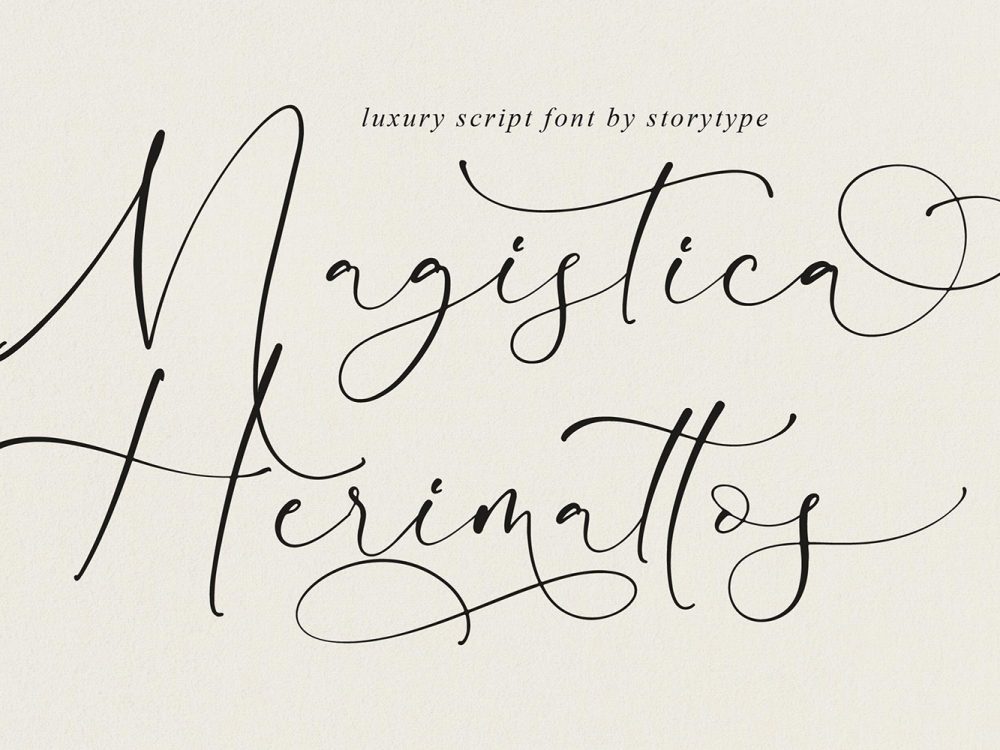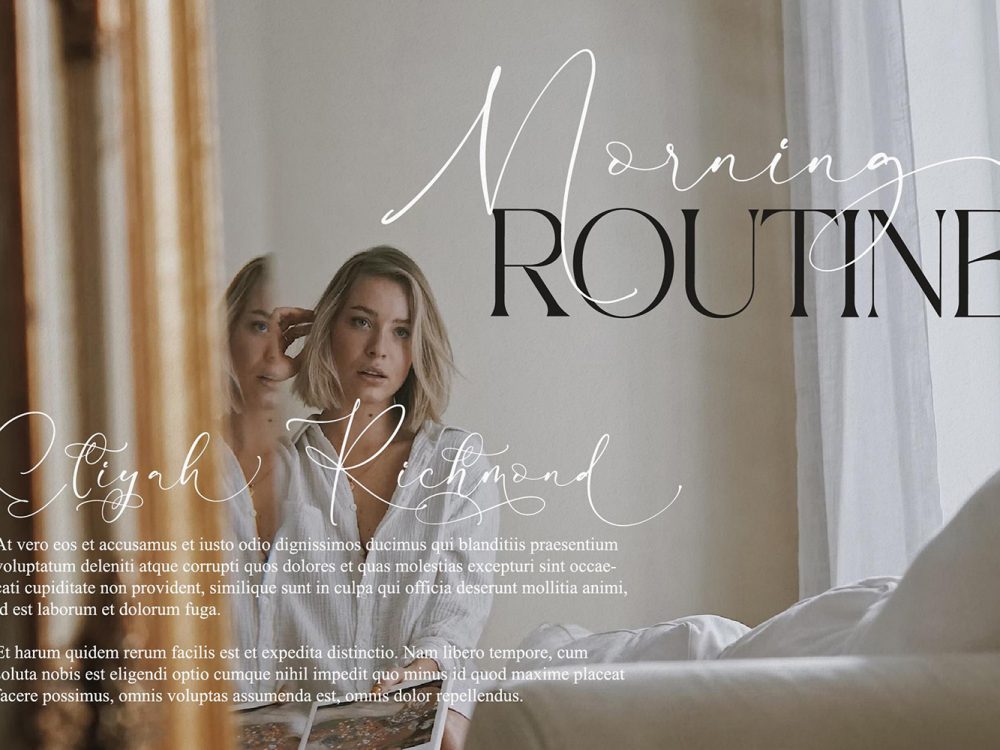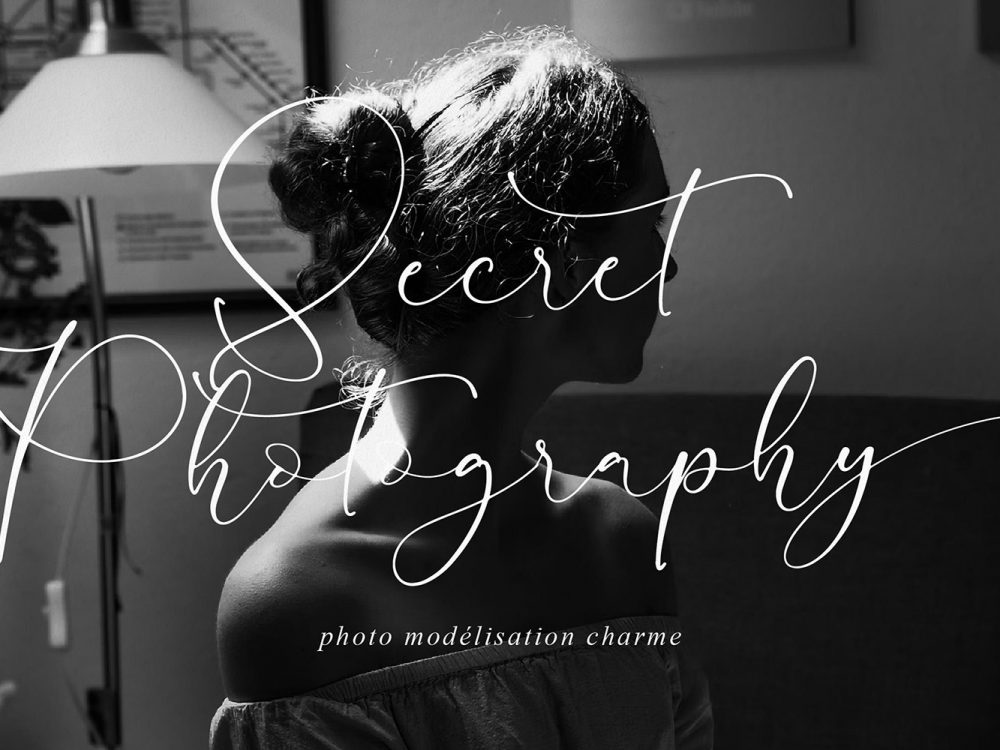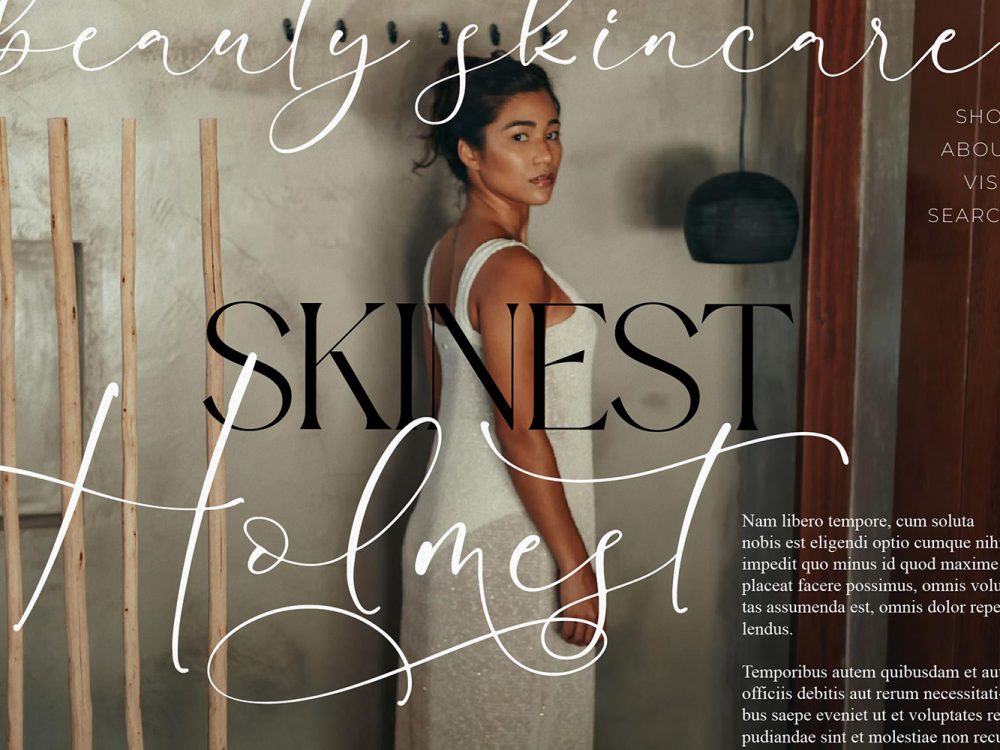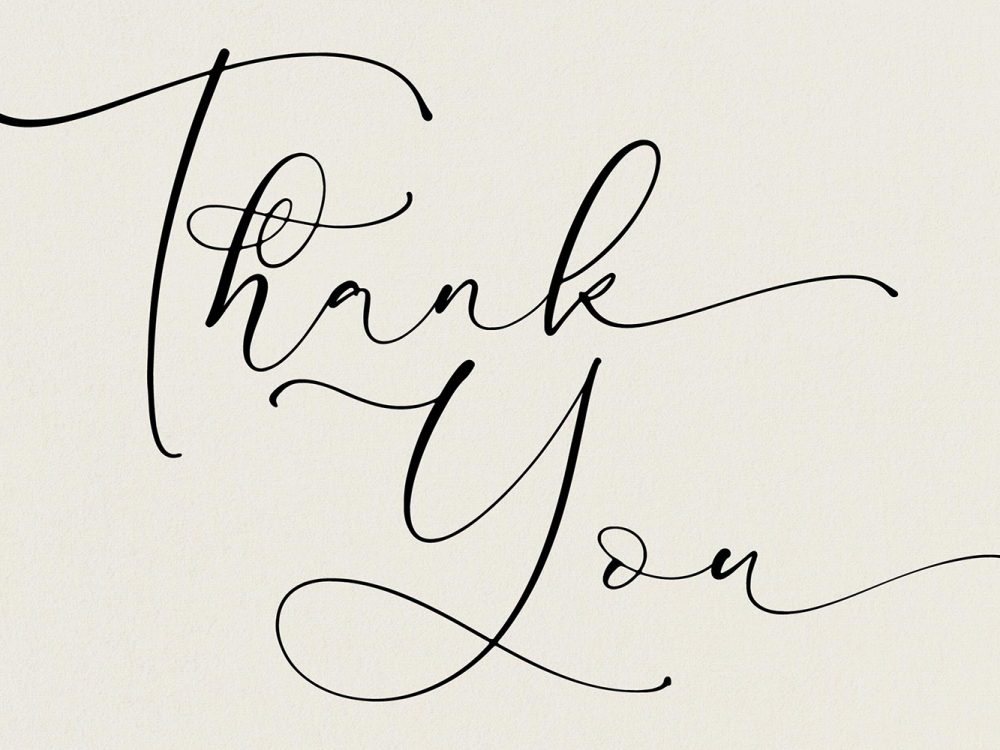
Magistica Herimattos Free Font
Magistica Herimattos Free Font is a beautiful handwritten font that simulates detailed brush writing and is very suitable for creating various design projects that require a scripted font. These can be posters, invitations, cards, branding, flyer prints, etc. If you wish to access more features and use them for commercial work please buy the full version.